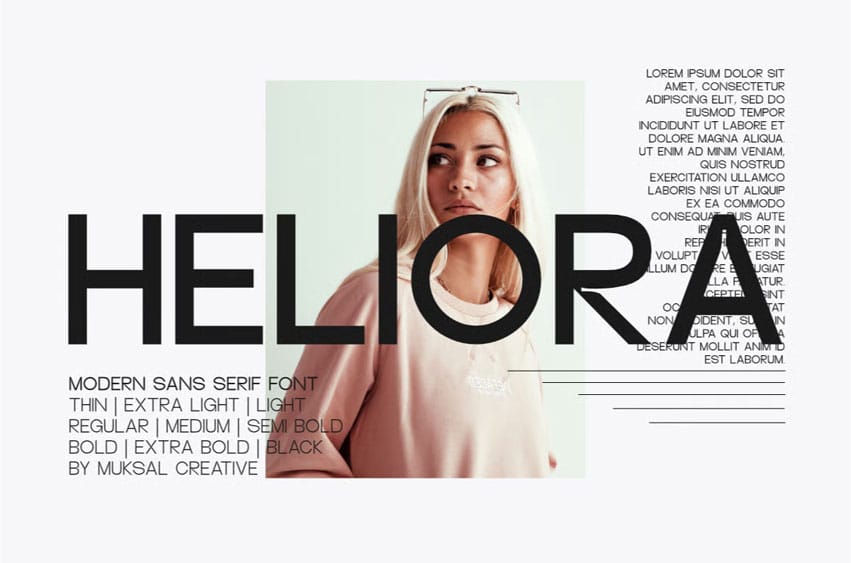
Heliora Modern Font is a modern sans-serif font family designed with clean letterforms and a balanced, elegant character. With excellent readability and versatile proportions, this typeface is ideal for branding, editorial layouts, packaging, user interfaces, and modern digital design. Heliora delivers a professional and contemporary look that works across a wide range of creative projects.
Heliora includes uppercase & lowercase letters, numerals, punctuation, and full multilingual support — making it suitable for both print and web applications.